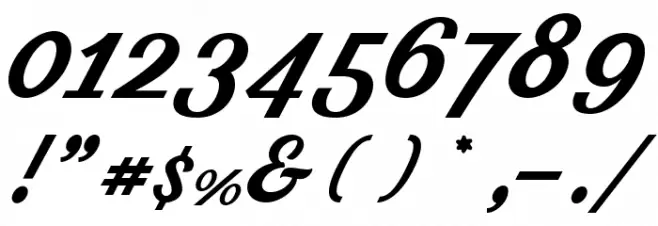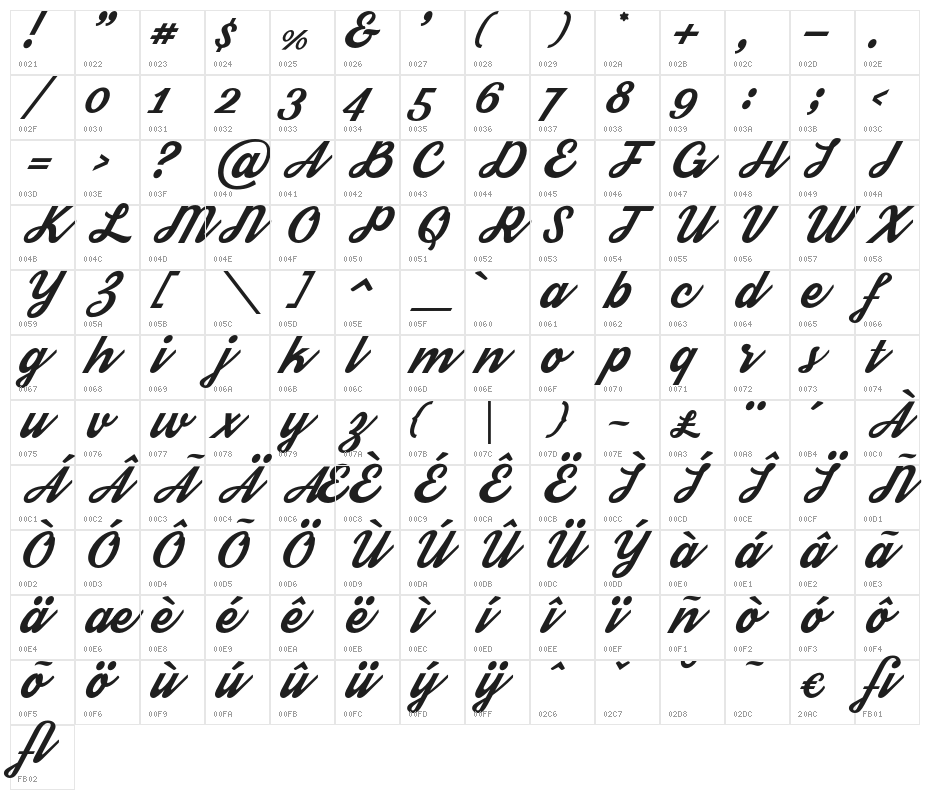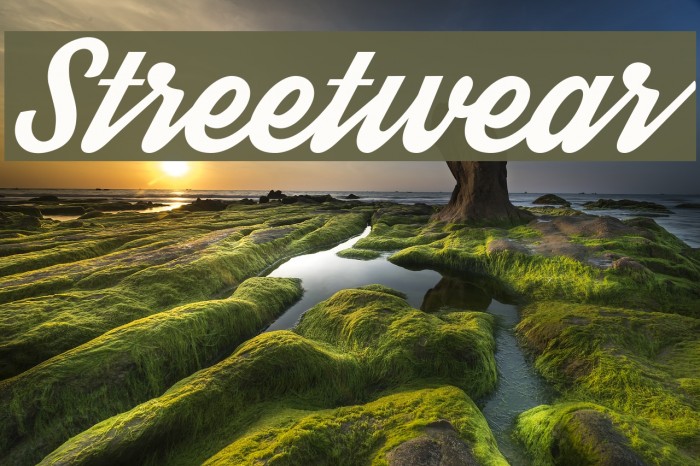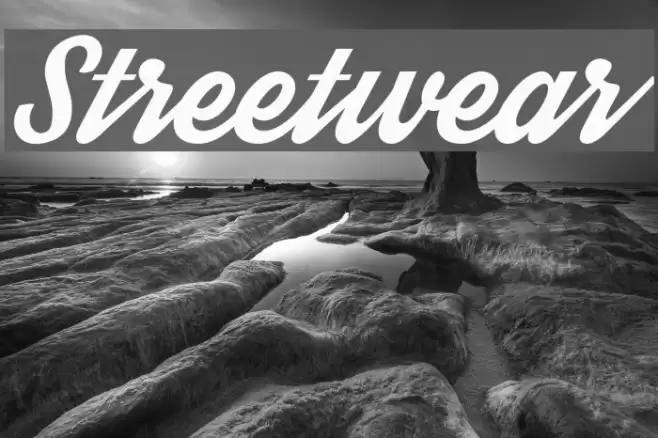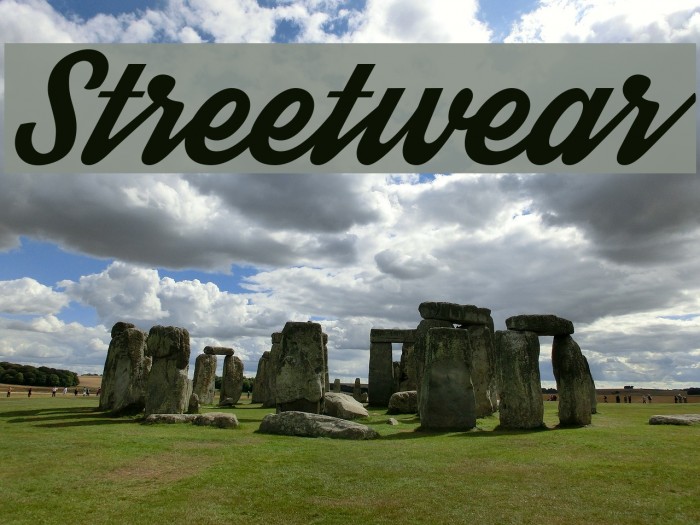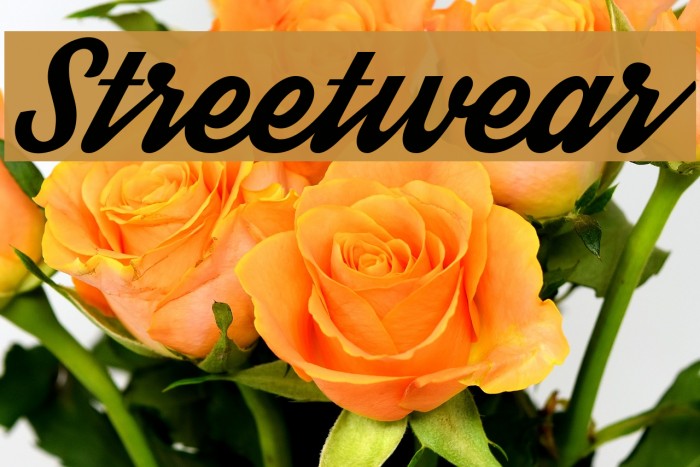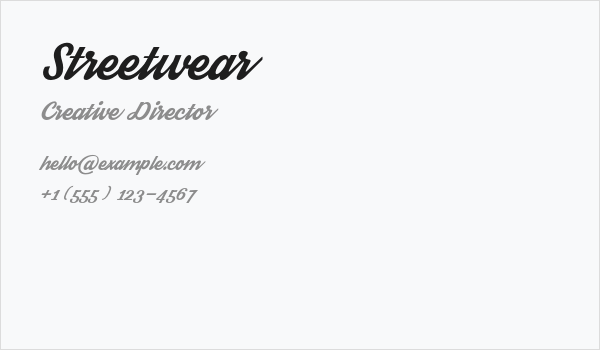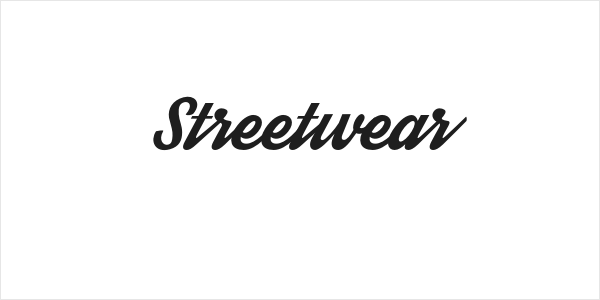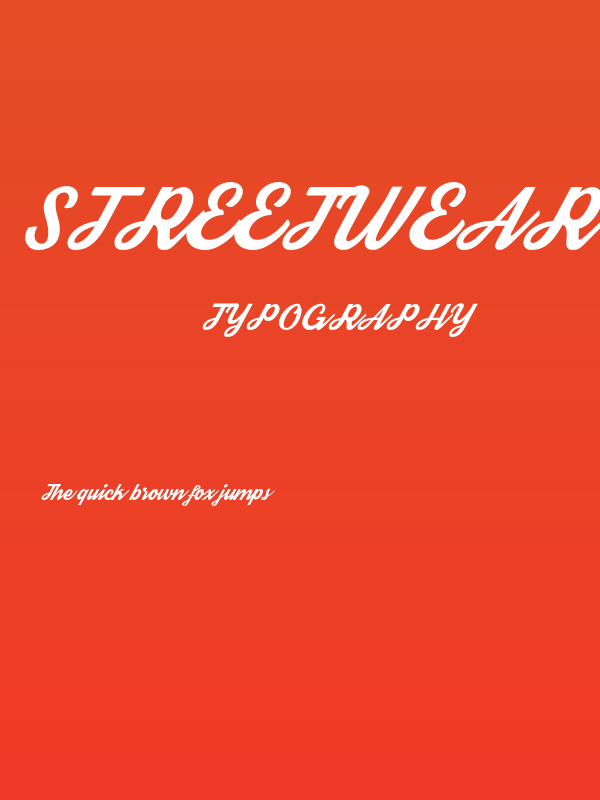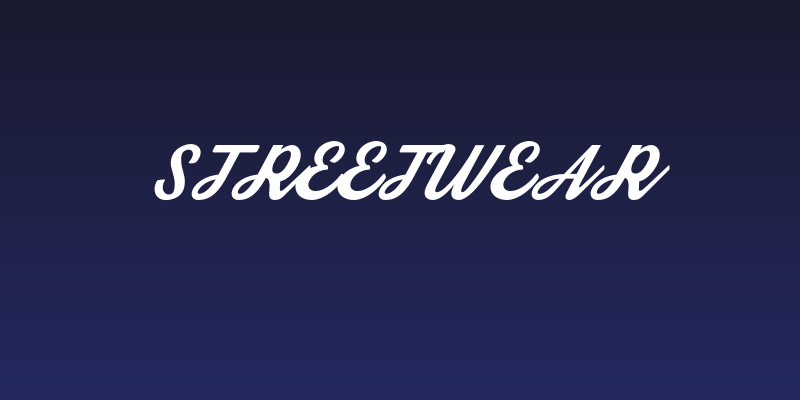
Streetwear Font
Streetwear Description
This font features a bold, cursive style with a dynamic and flowing appearance. The letters are interconnected, giving it a seamless and continuous look. The uppercase characters are slightly more elaborate, with elegant loops and swashes, while the lowercase letters maintain a consistent rhythm and balance. The numbers and special characters are designed to match the overall aesthetic, ensuring uniformity across all elements. This font exudes a sense of modernity and flair, making it ideal for projects that require a touch of sophistication and style.
| Use Case | Logos, Headlines, Branding |
| Proposed Projects | Ideal for branding, fashion labels, streetwear designs, and promotional materials. |